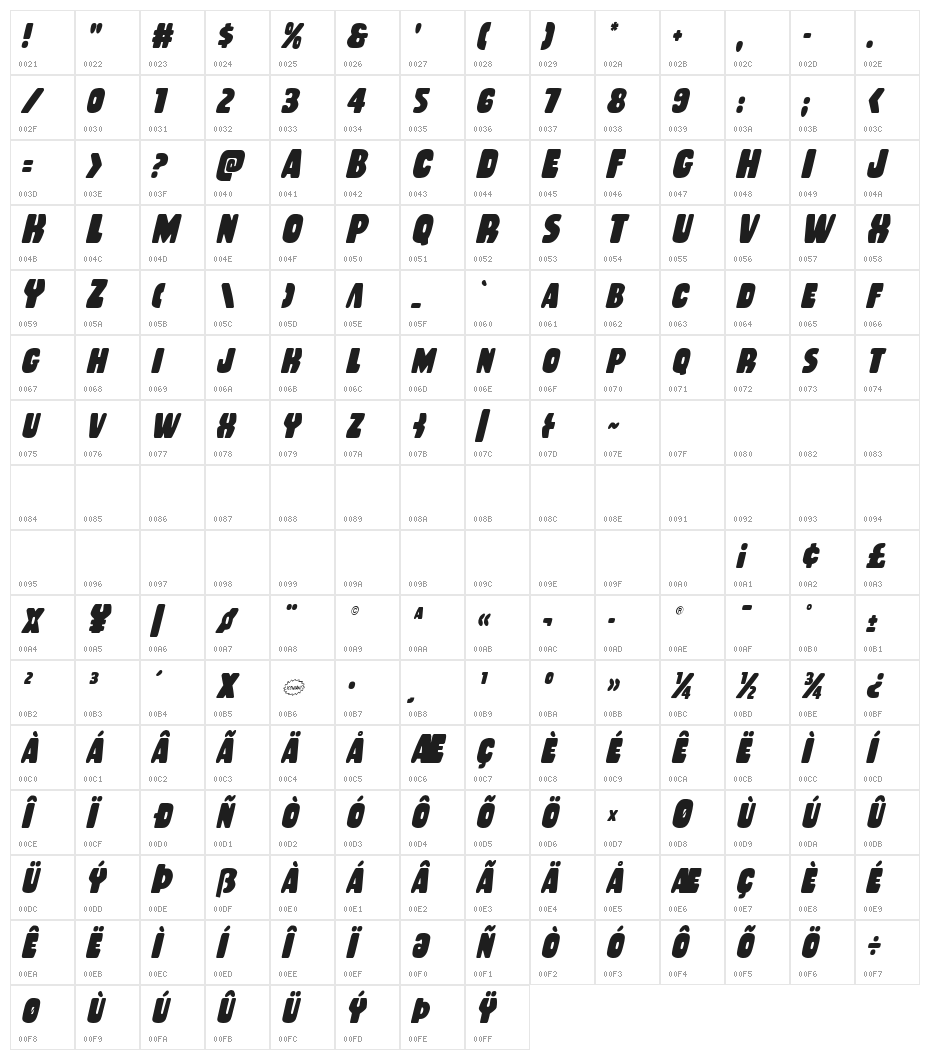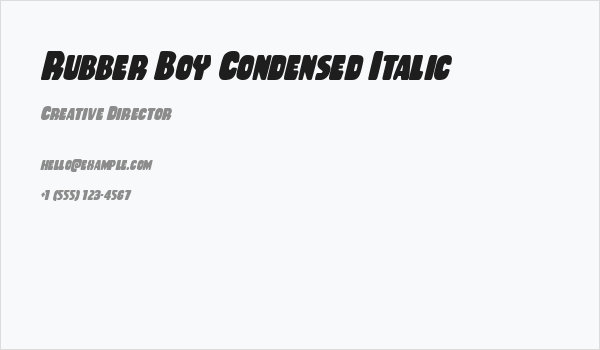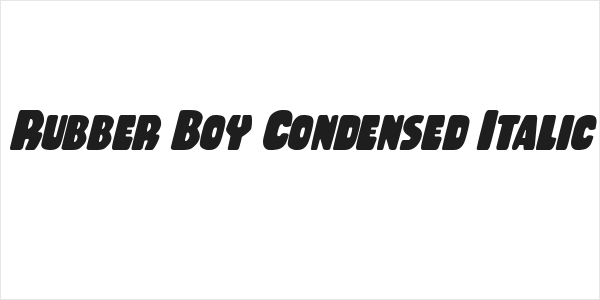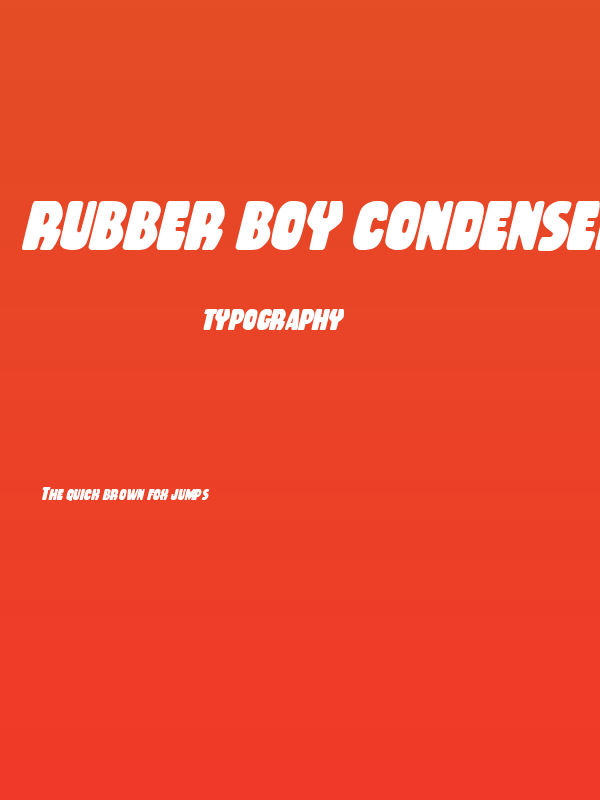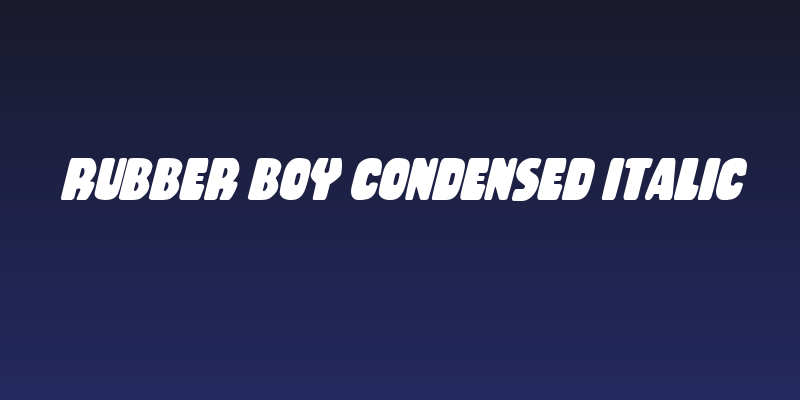
Rubber Boy Condensed Italic Font
Rubber Boy Condensed Italic Description
This font features a bold and playful design with a condensed structure, giving it a strong presence on the page. The italic style adds a dynamic and energetic feel, making it suitable for attention-grabbing headlines and creative projects. The characters are rounded and smooth, contributing to a friendly and approachable aesthetic. The font includes a full set of uppercase and lowercase letters, numbers, and a variety of special characters, ensuring versatility in its application. Its bold weight and condensed width make it ideal for use in limited space while maintaining readability.
| Proposed Projects | Ideal for posters, branding, advertising, and any project requiring a bold and energetic typeface. |